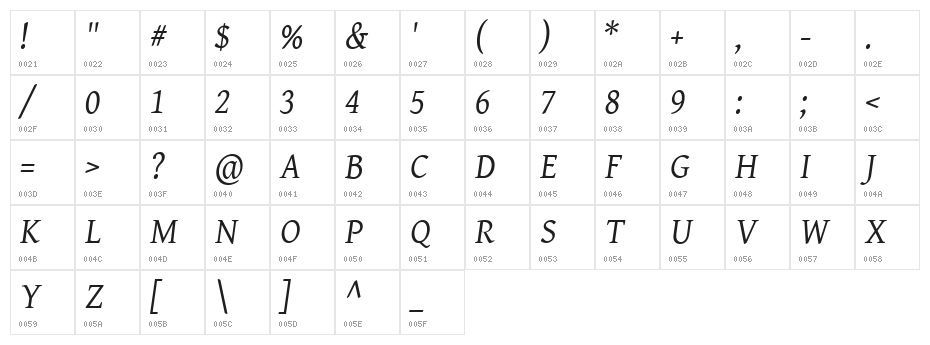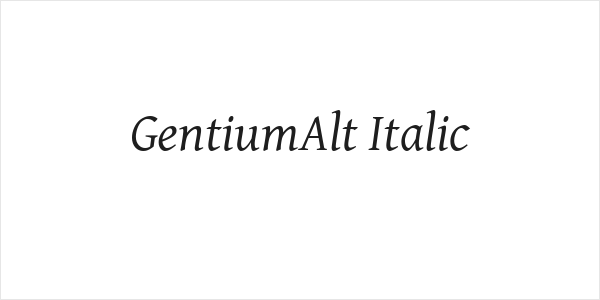
GentiumAlt Italic Font
GentiumAlt Italic Description
This font features an elegant and classic serif style with a distinct italic slant, giving it a sophisticated and refined appearance. The characters are well-proportioned, with smooth curves and sharp serifs that enhance readability. The uppercase letters are stately and commanding, while the lowercase letters maintain a graceful flow. Numbers are clear and consistent, and the special characters are designed to complement the overall aesthetic. The font's italic nature adds a dynamic and fluid quality, making it suitable for a variety of formal and creative applications.
| Proposed Projects | Ideal for book covers, formal invitations, editorial design, and branding projects that require a touch of elegance. |